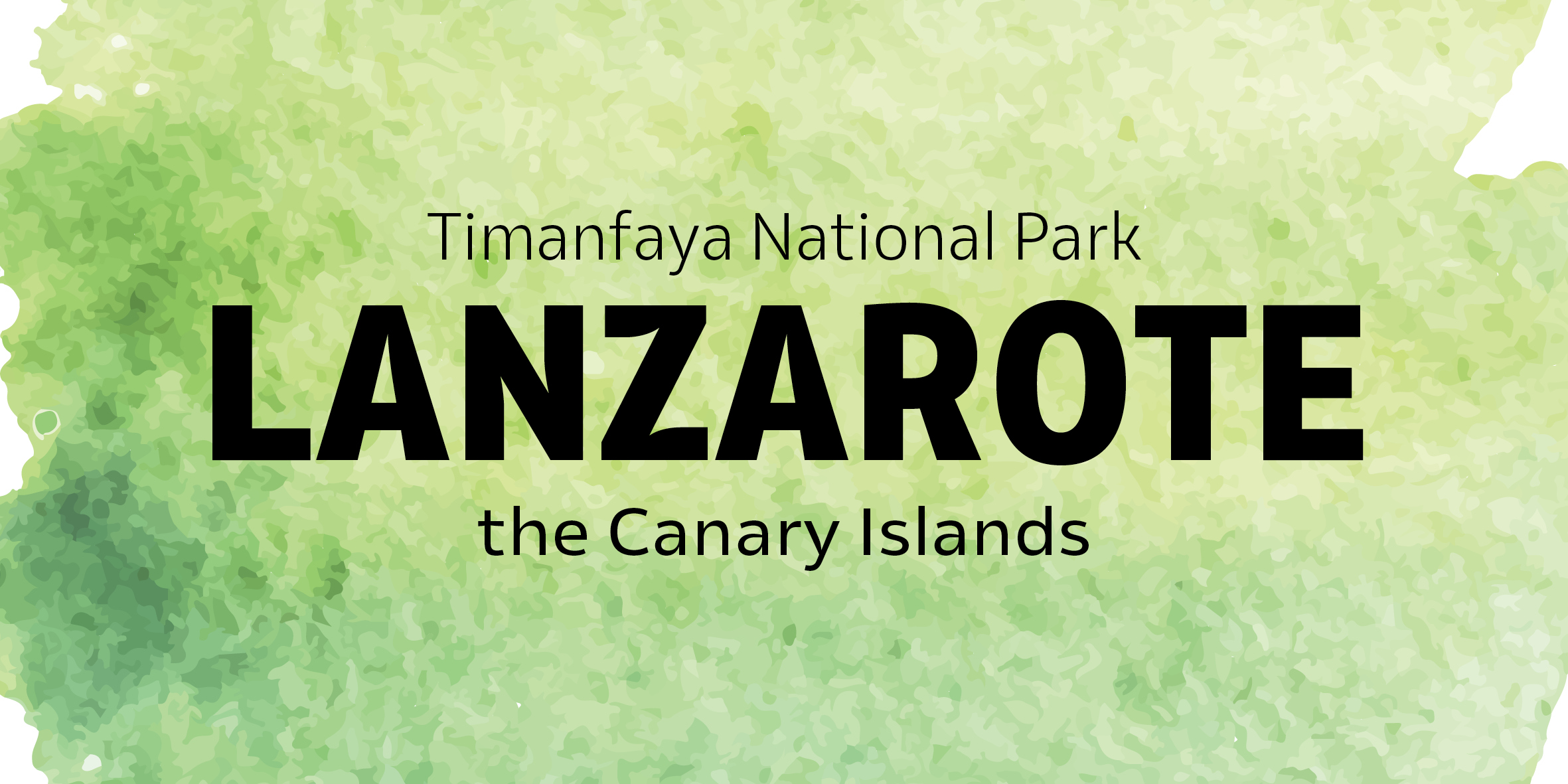
Olivine Font is ideal for organic food packaging, natural skincare branding, geological survey materials, gemstone jewelry designs, earth science educational content, mineral collection displays, natural history museum exhibits, and environmental conservation campaigns. This distinctive typeface works perfectly in crystal healing centers, nature photography watermarks, botanical garden signage, and sustainable lifestyle brand communications.
What makes Olivine Font exciting is its natural crystalline beauty and mineral sophistication that captures the pure essence of earth's geological treasures and organic formations. The font features crystalline letterforms, mineral-inspired spacing, and natural character that evokes the pristine beauty of gemstones and the authentic power of natural elements. Its earthy elegance and geological authenticity make every word feel as precious as natural minerals.
Olivine Font family includes various mineral styles: Regular, Bold, Light, Crystal, Natural, and Refined variations. Each style maintains the font's signature geological character while providing designers with comprehensive options for creating earth-inspired brand identities and natural typography that resonates with audiences seeking authentic connections to nature and sustainable living experiences.
Natural brands choose Olivine Font Free Download for projects requiring geological authenticity and organic appeal. The font's versatility makes it suitable for both modern sustainable applications and traditional natural product packaging, ensuring authentic results across eco-friendly websites, organic packaging, and environmental education materials.